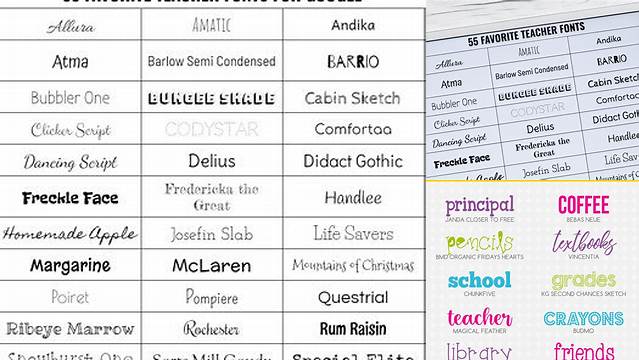
Best Free Teacher Fonts For Google Docs
Choosing the right font can make a huge difference in how your teaching materials are received. Free teacher fonts for Google Docs can help you create engaging and readable documents without spending a dime. This article explores some of the best options available, providing detailed insights into their characteristics and how to use them effectively.
1. Fun Fonts for Elementary Teachers
For elementary teachers, the goal is to find fonts that are both fun and easy to read for young children. Free teacher fonts for Google Docs designed for this age group often feature playful designs and clear letterforms. Consider fonts like KG Primary Penmanship or Schoolbell, which mimic handwriting and can help students connect with the material. These fonts can make worksheets, classroom decorations, and parent communications more appealing.
When selecting fun fonts, ensure they maintain legibility. Avoid overly decorative fonts that might confuse young readers. Instead, opt for fonts that are simple, clear, and slightly whimsical. Using a variety of these free teacher fonts can keep your materials fresh and engaging, helping to capture and maintain students' attention. Remember to test the font size and spacing to ensure everything is easily readable.
2. Professional Fonts for High School Teachers
High school teachers often require a more professional and sophisticated look for their documents. Free teacher fonts for Google Docs in this category include classics like Arial, Times New Roman, and Calibri, but there are also more modern options such as Open Sans and Lato. These fonts convey authority and professionalism, making them suitable for research papers, presentations, and formal communications.
Choosing the right professional font can enhance the credibility of your materials. While it's tempting to use more stylized fonts, sticking with clear and legible typefaces is generally the best approach. Using a consistent font throughout your documents can also help to create a cohesive and polished look. Experiment with different sizes and weights to find the perfect balance for your needs.
3. Handwriting Fonts for Personalized Notes
Adding a personal touch to your notes and communications can make a big difference in building relationships with students and parents. Free teacher fonts for Google Docs that mimic handwriting can help you achieve this. Fonts like Permanent Marker and Coming Soon offer a natural, handwritten feel without the effort of writing everything by hand.
These handwriting fonts are perfect for adding a personal touch to certificates, notes of encouragement, or feedback on student work. However, it's important to use them sparingly and ensure they are still readable. Overusing handwriting fonts can make your documents look cluttered and difficult to read. A good strategy is to use them for headings or short notes, while sticking with a more standard font for the main body of text.
4. Bold Fonts for Emphasis
Using bold fonts is a great way to highlight important information and draw attention to key points in your documents. Free teacher fonts for Google Docs that offer a strong, bold option can be particularly useful for creating worksheets, quizzes, and presentations. Fonts like Montserrat and Roboto offer excellent bold variations that are both readable and visually appealing.
When using bold fonts, be mindful of overdoing it. Too much bold text can make your document look overwhelming and less effective. Instead, use bold sparingly to emphasize specific words or phrases that you want your students to remember. Experiment with different font weights and sizes to find the right balance. Combining bold fonts with other formatting techniques, such as italics and underlining, can also help to create visually engaging materials.
5. Italic Fonts for Style
Italic fonts can add a touch of style and sophistication to your documents, making them more visually appealing. Free teacher fonts for Google Docs that include well-designed italic versions can be used to emphasize certain words or phrases, or to differentiate between different types of text. Fonts like Garamond and Playfair Display offer elegant italic options that can enhance the overall look of your materials.
Using italic fonts can be particularly effective for citing sources, adding captions to images, or highlighting key terms. However, like bold fonts, it's important to use italics sparingly. Overusing italics can make your document look cluttered and difficult to read. A good strategy is to reserve italics for specific purposes and to use them in combination with other formatting techniques to create a cohesive and visually appealing design.
6. Serif Fonts for Formal Documents
Serif fonts, characterized by the small decorative strokes at the end of each letter, are often used for formal documents and printed materials. Free teacher fonts for Google Docs in the serif category include classics like Times New Roman and Georgia, which are known for their readability and professional appearance. These fonts are ideal for creating reports, essays, and other formal documents.
Choosing the right serif font can enhance the credibility and readability of your materials. While there are many different serif fonts to choose from, sticking with well-established and widely recognized options is generally the best approach. Experiment with different sizes and weights to find the perfect balance for your needs. Using a consistent serif font throughout your documents can also help to create a cohesive and polished look.
7. Sans-Serif Fonts for Digital Readability
Sans-serif fonts, which lack the decorative strokes found in serif fonts, are often preferred for digital documents and online reading. Free teacher fonts for Google Docs in the sans-serif category include popular options like Arial, Helvetica, and Open Sans, which are known for their clean and modern appearance. These fonts are ideal for creating websites, presentations, and other digital materials.
Using a sans-serif font can improve the readability of your documents on screens, making them easier for students to read and understand. While there are many different sans-serif fonts to choose from, sticking with clear and simple options is generally the best approach. Avoid overly stylized or decorative sans-serif fonts, which can be difficult to read on screens. Experiment with different sizes and weights to find the perfect balance for your needs.
8. Cursive Fonts for Decorative Purposes
Cursive fonts can add a touch of elegance and sophistication to your documents, making them more visually appealing. Free teacher fonts for Google Docs that mimic handwriting can be used for decorative purposes, such as creating invitations, certificates, or special announcements. Fonts like Brush Script MT and Edwardian Script ITC offer beautiful cursive designs that can enhance the overall look of your materials.
However, it's important to use cursive fonts sparingly and to ensure they are still readable. Overusing cursive fonts can make your documents look cluttered and difficult to read. A good strategy is to reserve cursive fonts for headings or short phrases and to use them in combination with other formatting techniques to create a cohesive and visually appealing design.
9. Monospace Fonts for Coding Examples
Monospace fonts, in which each character occupies the same amount of horizontal space, are commonly used for displaying code and other technical information. Free teacher fonts for Google Docs in the monospace category include options like Courier New and Consolas, which are known for their readability and clarity. These fonts are ideal for creating coding examples, programming tutorials, and other technical documents.
Using a monospace font can make it easier for students to read and understand code, as it helps to align characters and distinguish between different elements. When creating coding examples, be sure to use a consistent monospace font throughout your document to maintain clarity and readability. Experiment with different sizes and weights to find the perfect balance for your needs.
10. Display Fonts for Headlines
Display fonts are designed to be used in headlines and other prominent text elements, where their unique and eye-catching designs can make a strong visual impact. Free teacher fonts for Google Docs in the display category include a wide variety of styles, from bold and modern to elegant and traditional. These fonts are ideal for creating posters, banners, and other visual materials.
When choosing a display font, be sure to select one that is appropriate for your audience and the overall tone of your document. Avoid using overly decorative or difficult-to-read display fonts, as they can detract from the message you are trying to convey. Instead, opt for display fonts that are both visually appealing and easy to read.
11. Google Fonts for Teachers
Free teacher fonts for Google Docs are readily available through Google Fonts, a vast library of open-source fonts that can be easily accessed and used in Google Docs and other Google applications. Some popular Google Fonts for teachers include Open Sans, Roboto, and Lato, which are known for their readability and versatility. These fonts can be used for a wide range of teaching materials, from worksheets and presentations to newsletters and websites.
12. Best Font Combinations for Teacher Documents
Choosing the right font combination can enhance the visual appeal and readability of your teacher documents. A good strategy is to pair a serif font for the body text with a sans-serif font for the headings, or vice versa. Free teacher fonts for Google Docs that work well together include Times New Roman and Arial, Georgia and Verdana, and Open Sans and Montserrat. Experiment with different combinations to find the perfect look for your materials.
13. Tips for Choosing Fonts for Different Grade Levels
Selecting fonts that are appropriate for different grade levels can help to improve student engagement and comprehension. For younger students, it's best to choose simple and easy-to-read fonts like Comic Sans MS or Schoolbell. For older students, you can use more sophisticated fonts like Times New Roman or Arial. Consider the reading level and visual preferences of your students when choosing fonts for your teaching materials.
14. Font Size and Spacing for Readability
Adjusting the font size and spacing can significantly impact the readability of your documents. For most teaching materials, a font size of 12 points is recommended. Adjust the line spacing to 1.5 or 2.0 to improve readability. Use headings and subheadings to break up long blocks of text and make your documents easier to scan. Free teacher fonts for Google Docs can be optimized for readability with careful attention to size and spacing.
15. Using Fonts to Create Engaging Worksheets
Fonts can play a crucial role in creating engaging and visually appealing worksheets for your students. Use fun and playful fonts for younger students to capture their attention and make learning more enjoyable. For older students, use more professional and sophisticated fonts to convey a sense of authority and credibility. Experiment with different font styles and sizes to create worksheets that are both informative and visually appealing.
16. Font Styles for Presentations
Choosing the right fonts for your presentations can help to enhance your message and engage your audience. Use clear and easy-to-read fonts like Arial or Open Sans for the body text. Use bold and eye-catching fonts for the headings to grab attention. Avoid using overly decorative or difficult-to-read fonts, as they can distract from your message. Ensure free teacher fonts for Google Docs used in presentations are compatible with the presentation software.
17. Fonts for Classroom Decorations
Fonts can be used to create visually appealing and informative classroom decorations. Use bright and colorful fonts to create posters, banners, and bulletin boards that will capture the attention of your students. Choose fonts that are appropriate for the age and reading level of your students. Ensure the fonts are large enough to be easily read from a distance.
18. Fonts for Parent Communications
Choosing the right fonts for parent communications can help to convey a sense of professionalism and credibility. Use clear and easy-to-read fonts like Times New Roman or Arial for newsletters, emails, and other communications. Avoid using overly casual or decorative fonts, as they may not be taken seriously. Free teacher fonts for Google Docs should present a professional image when communicating with parents.
19. Accessibility Considerations for Font Choice
When choosing fonts for your teaching materials, it's important to consider accessibility for students with visual impairments. Use fonts that are large and easy to read, with clear and distinct letterforms. Avoid using fonts that are too thin or decorative, as they can be difficult to read. Provide alternative formats for students who need them, such as large print or audio versions.
20. Font Licensing and Usage Rights
Before using any font in your teaching materials, it's important to understand the licensing and usage rights. Many fonts are free for personal and educational use, but some may require a commercial license. Be sure to read the font's license agreement carefully to ensure that you are using it legally. Google Fonts are generally free to use for any purpose.
21. Pairing Fonts for Visual Harmony
Combining fonts effectively can significantly enhance the visual appeal of your teaching materials. A harmonious pairing often involves contrasting a serif font with a sans-serif font. For instance, pairing a classic serif font like Lora with a clean sans-serif like Montserrat provides balance and readability. When selecting free teacher fonts for Google Docs, experiment with different combinations to find what works best for your content and audience.
22. Monospace Fonts for Code Snippets
When incorporating code snippets into your teaching materials, monospace fonts are essential for clarity. These fonts ensure that each character occupies the same amount of horizontal space, making code easier to read and debug. Courier New and Consolas are excellent choices. In Google Docs, utilizing these free teacher fonts can greatly improve the legibility of programming examples for students.
23. Utilizing Dingbat Fonts for Visual Cues
Dingbat fonts, which consist of symbols and icons rather than letters, can be used to add visual cues and emphasis to your documents. Incorporating these free teacher fonts for Google Docs can make your teaching materials more engaging. Use dingbats sparingly to highlight important points or add a touch of creativity. Be mindful of overusing dingbats, as they can distract from the main content.
24. Decorative Fonts for Special Occasions
For special occasions or celebratory events, decorative fonts can add a festive touch to your teaching materials. Fonts like Pacifico or Lobster can be used for headings or titles to create a unique and eye-catching design. These free teacher fonts for Google Docs should be used selectively to avoid overwhelming the reader. Ensure the font remains legible and complements the overall aesthetic of the document.
25. Script Fonts for Personalized Touches
Script fonts mimic handwriting and can add a personalized touch to your teaching materials. Use them for short notes, certificates, or thank-you cards to convey a sense of warmth and authenticity. Brush Script MT is a popular choice. When using these free teacher fonts for Google Docs, be cautious about readability, as script fonts can sometimes be difficult to decipher. Use them sparingly and in larger sizes to ensure clarity.
26. Choosing Fonts Based on Subject Matter
The subject matter of your teaching materials can influence your font choice. For example, a science lesson might benefit from a clean and modern sans-serif font, while a history lesson might be more appropriate with a classic serif font. Consider the tone and context of your content when selecting free teacher fonts for Google Docs to ensure the font aligns with the subject matter.
27. Creating a Font Style Guide for Consistency
Establishing a font style guide can help maintain consistency across all your teaching materials. Define the fonts to be used for headings, body text, and other elements to create a cohesive and professional look. A style guide ensures that all your documents reflect a unified brand and enhances readability. Implementing free teacher fonts for Google Docs in a consistent manner can significantly improve the overall presentation of your materials.
28. Adjusting Letter Spacing for Enhanced Legibility
Adjusting the letter spacing, also known as tracking, can significantly improve the legibility of your documents. Increasing the letter spacing can make text easier to read, especially in smaller font sizes or with certain font styles. Experiment with different letter spacing settings to find the optimal balance for your chosen free teacher fonts for Google Docs.
29. Using Color to Complement Font Choices
Color can be a powerful tool for complementing your font choices and enhancing the visual appeal of your teaching materials. Use color to highlight important information, create visual contrast, and add personality to your documents. Ensure that the colors you choose are accessible and provide sufficient contrast with the background. Combining color effectively with free teacher fonts for Google Docs can make your materials more engaging and effective.
30. Mobile-Friendly Font Considerations
With the increasing use of mobile devices, it's important to consider how your fonts will appear on smaller screens. Choose fonts that are legible and scalable on mobile devices. Avoid using overly decorative or complex fonts that may be difficult to read on smaller screens. Testing your documents on different devices can help ensure that your chosen free teacher fonts for Google Docs provide a positive reading experience for all users.